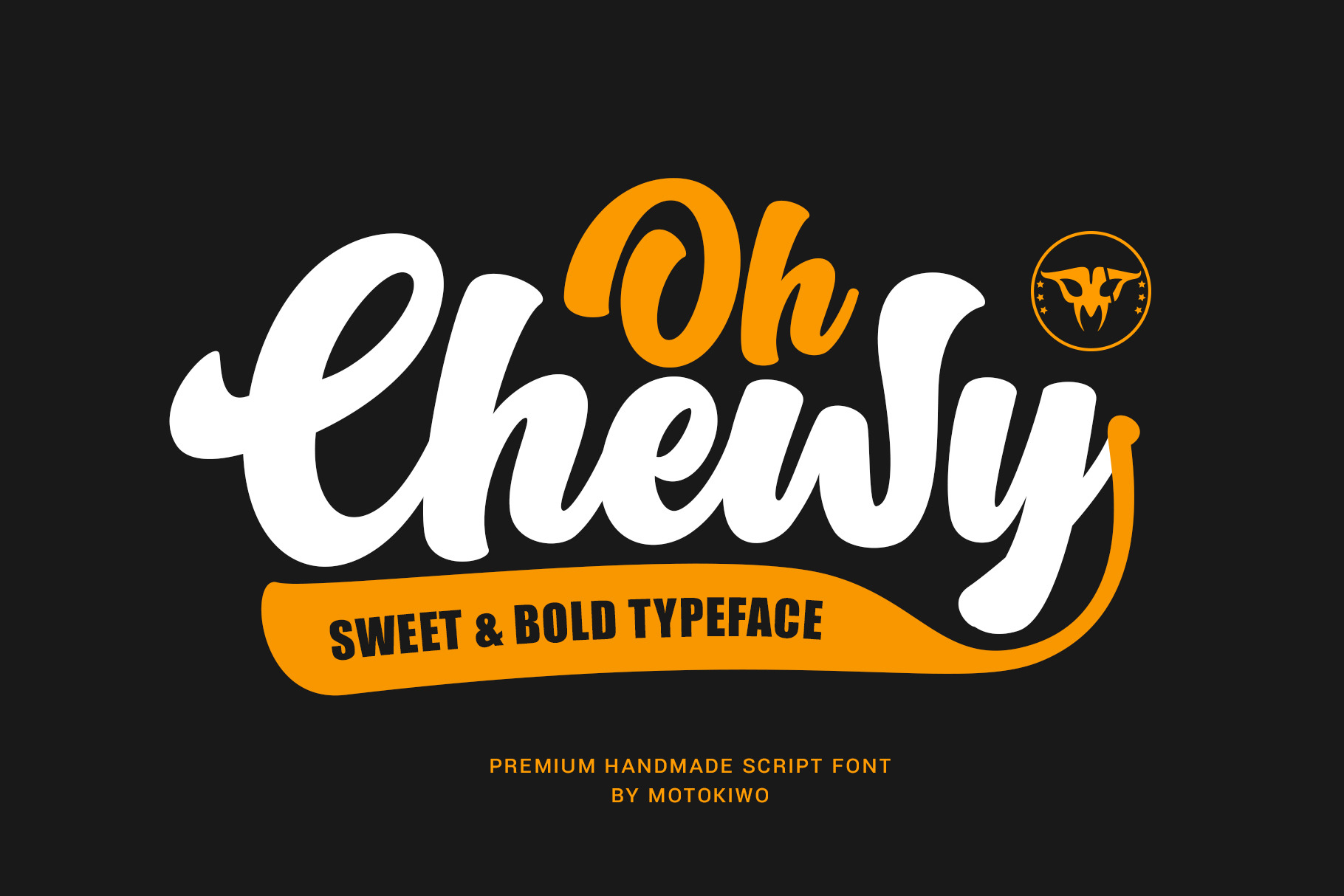
Oh Chewy - Sweet & Bold Script Font
Oh Chewy... a sweet bold script font with alternates and lovely swashes. It has fat strokes and smooth edge, that's great for food branding, retro style, and eye-catching logo.
- Special Character (Standard Multilingual)
- Stylistic Set (SS01 & SS02)
- Access All Alternates